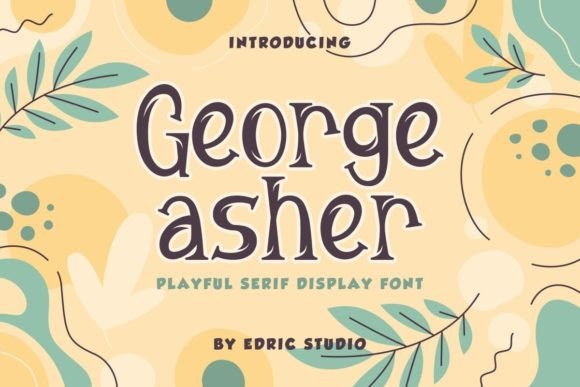
In a world saturated with standardized fonts, George Asher emerges as a breath of fresh air. Its decorative and informal style is a testament to the power of individuality, inviting you to create designs that resonate with your unique vision. As a serif font family, George Asher exudes a timeless elegance that commands attention without overpowering your message. Its meticulously crafted curves and sharp serifs lend a touch of sophistication to any project, whether it be a captivating visiting card, an eye-catching poster, or an unforgettable logo.
Step into a realm of creative possibilities with George Asher. Let your imagination run wild as you explore the endless applications of this versatile font. Its distinctive character shines through in a multitude of settings, from the vibrant world of digital design to the tangible realm of packaging and product design. Unleash your creativity and watch as George Asher transforms your designs into captivating works of art.
With George Asher at your fingertips, you hold the key to unlocking a world of visual enchantment. Its ability to effortlessly blend classic charm with modern flair makes it the perfect choice for businesses and industries seeking to make a lasting impression. From the dynamic realm of advertising and promotion to the intricate world of publishing, George Asher weaves its magic, leaving an indelible mark on every project it graces.
Immerse yourself in the boundless versatility of George Asher. Its adaptability extends far beyond traditional boundaries, reaching into the realms of crafts, culinary, and children's design. Watch as your creations take on a life of their own, captivating audiences with their playful charm and undeniable allure. George Asher is the font that knows no limits, empowering you to turn your creative dreams into tangible realities.